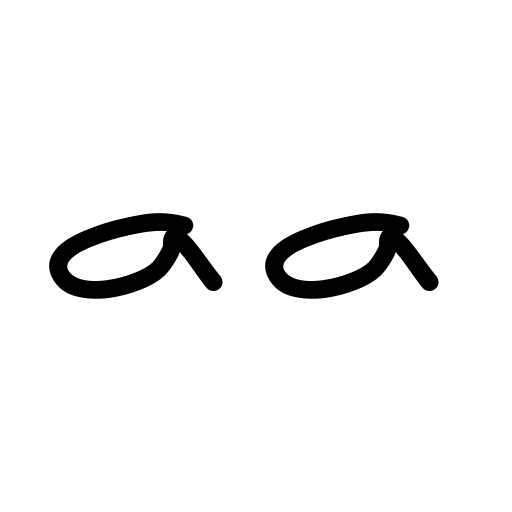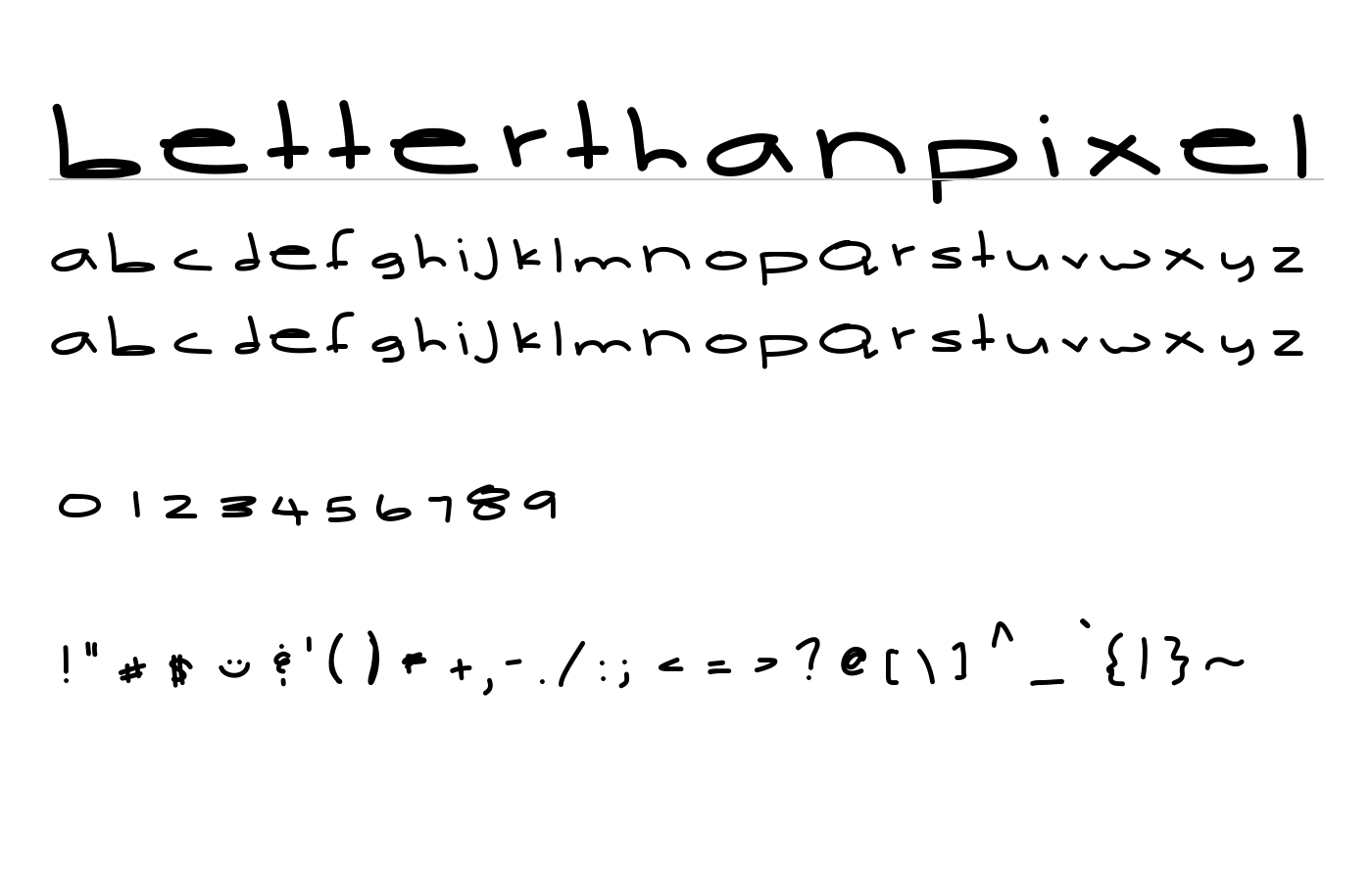
BetterThanPixel is a playful and informal handwritten sans serif font with a light weight and irregular stroke style that gives it a casual, friendly feel. Its unique letter shapes and whimsical details make it perfect for creative projects, children’s content, or any design needing a personal, approachable touch. This font works well in logos, social media graphics, and fun editorial designs where a relaxed and inviting mood is desired.
BetterThanPixel Font
About BetterThanPixel Font